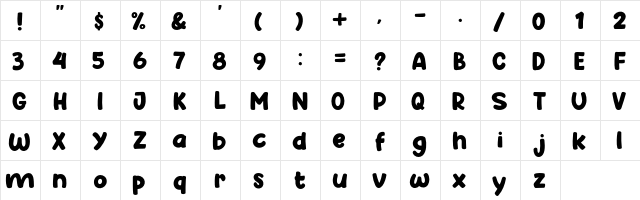
Happy School Regular
Design Context for Happy School Typeface
Happy School offers clean, dependable letterforms without strong stylistic allegiance, making it a practical choice for designers who need flexibility.